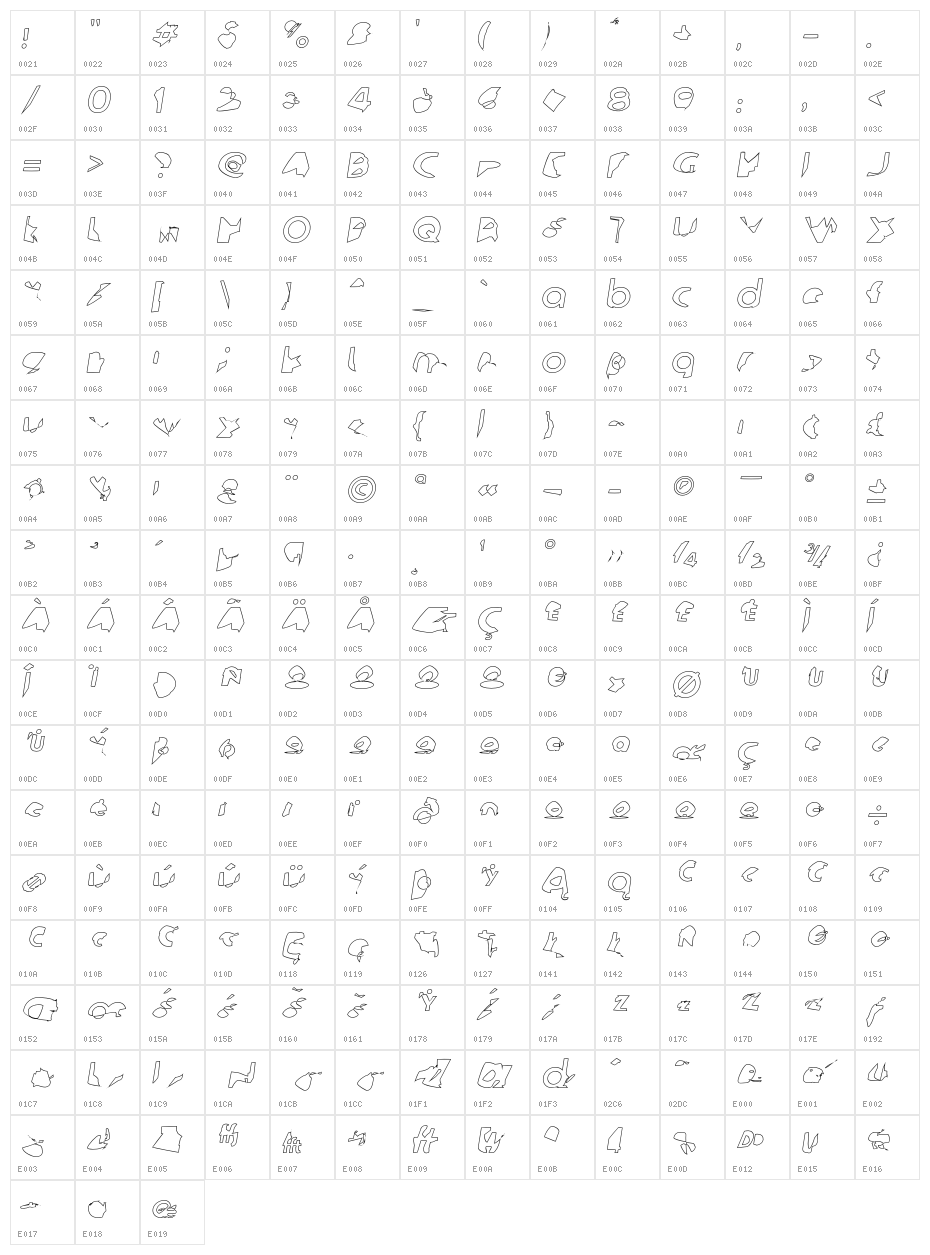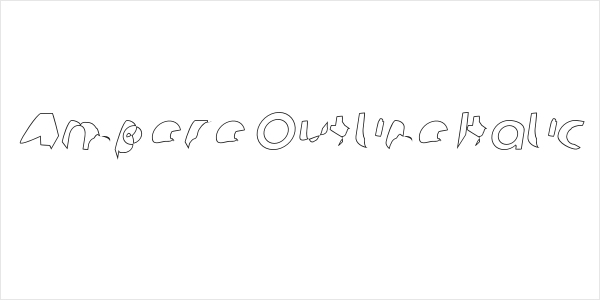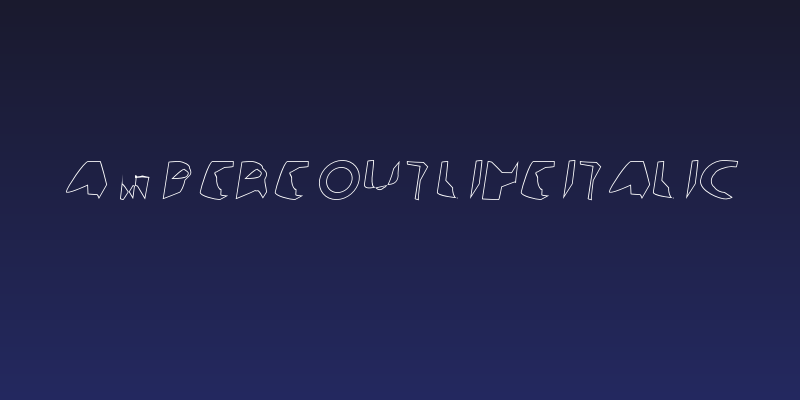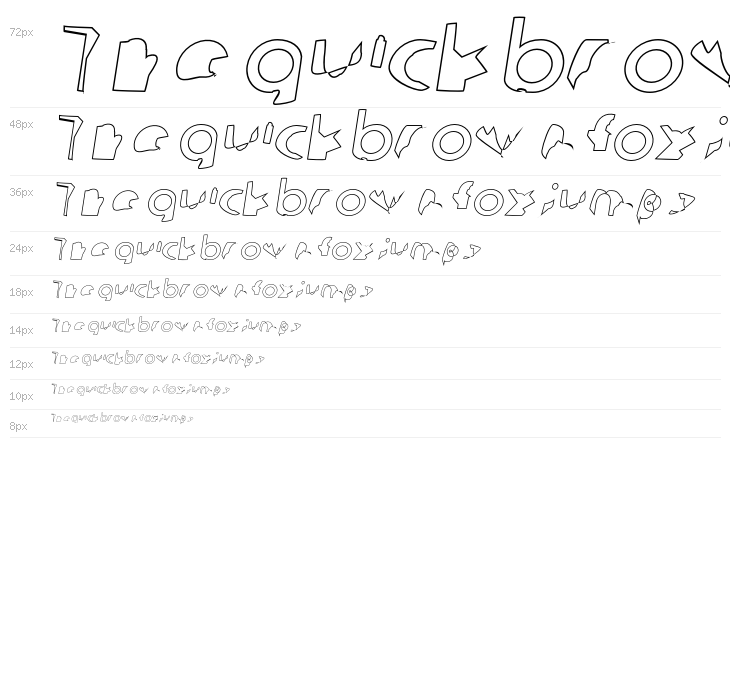
Ampere Outline Italic Font
Ampere Outline Italic Description
This font features a unique, edgy outline style with an italic slant, giving it a dynamic and modern appearance. The characters are composed of sharp, angular lines and geometric shapes, creating a sense of movement and energy. The uppercase and lowercase letters maintain a consistent style, with the lowercase being slightly more rounded. Numbers and special characters follow the same design principles, ensuring uniformity across all glyphs. The outline nature of the font makes it suitable for overlaying on various backgrounds, adding a striking visual element to any design.
| Proposed Projects | Ideal for modern branding, edgy posters, digital artwork, and futuristic designs. |